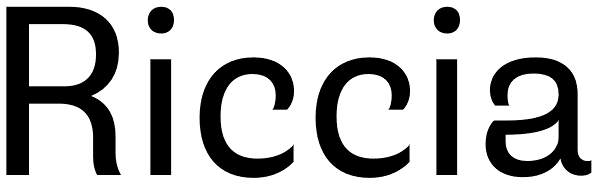
Riccia
Riccia actually started with the idea of a Rotunda a. Specifically the lower part of it. This element has a lot of character and I wanted to transfer it to a modern sans serif. The curly endings made it possible to spread that idea to the entire...